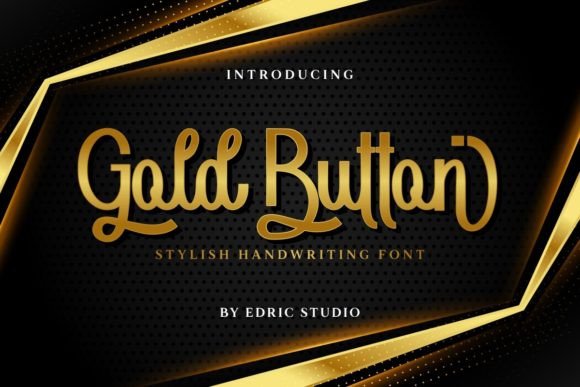
Journey into the realm of elegance and sophistication with Gold Button Font, a script typeface meticulously crafted to leave an indelible mark on your creative endeavors. This stunning creation by EdricStudio embodies the essence of classic allure, effortlessly readable, and universally adaptable across a myriad of industries.
From the architect's blueprint to the boutique's signage, from the cosmetic label to the handcrafted charm, Gold Button Font seamlessly blends into any context, exuding a touch of timeless grace. Its captivating characters, meticulously spaced and kerned, dance across your designs, adding a layer of refinement that commands attention.
Imagine your creations adorned with the brilliance of Gold Button Font. Billboards towering over city streets, their messages rendered in elegant script, captivating every passerby. Brands come alive with a distinct personality, their logos and slogans etched in Gold Button Font, leaving a lasting impression on customers. Brochures and invitations exude an air of exclusivity, their words flowing gracefully across the page, inviting recipients to indulge in the experience.
Envision phone cases adorned with personalized quotes, each letter meticulously crafted in Gold Button Font, transforming a mundane accessory into a statement piece. Unleash your creativity with this font's versatility, exploring its potential in labels, posters, and social media graphics. The possibilities are boundless, limited only by your imagination.
Moreover, Gold Button Font's PUA Encode Characters unlock a treasure trove of glyphs and additional characters, effortlessly accessible without requiring specialized design software. This opens up a realm of creative possibilities, allowing you to infuse your projects with a unique and captivating flair.
Embrace the allure of Gold Button Font, and embark on a design journey where elegance and impact converge. Transform your creative visions into masterpieces that resonate with sophistication and timeless appeal.